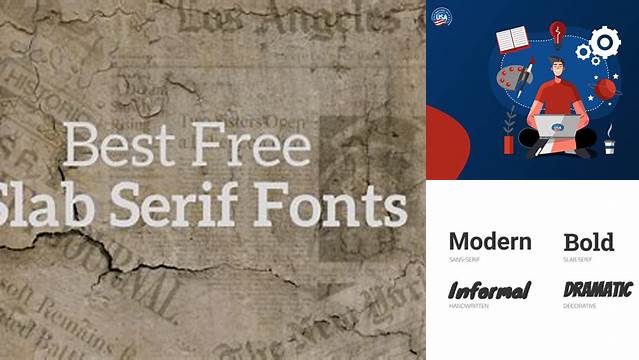
Best Fonts For Editorials: A Designer's Guide
Introduction: The Power of Typography in Editorial Design
Hey guys! Ever flipped through a magazine or a well-designed website and felt instantly drawn in? Chances are, the typography played a huge role in that. Typography, the art and technique of arranging type, is absolutely crucial in editorial design. It's not just about making words visible; it's about creating a visual hierarchy, setting the tone, and enhancing the overall reading experience. Choosing the right fonts for editorials is like picking the perfect outfit for an occasion—it can make or break the entire look and feel. This guide dives deep into the world of editorial fonts, helping you make informed choices that will elevate your designs. So, let's get started on unraveling the secrets of selecting the best fonts to captivate your audience and give your editorials that professional, polished edge!
When you think about editorial design, you're essentially crafting a visual narrative. The fonts you select are the voice of that narrative. A strong font choice can instantly communicate the publication's personality, whether it’s sophisticated, playful, serious, or avant-garde. Consider the message you want to convey: Is it a high-end fashion magazine that needs elegance and class? Or a tech journal that requires a modern and clean aesthetic? The typeface will need to align with the content and target audience. For instance, a serif font, with its classic and traditional feel, might be perfect for a literary journal or a historical publication. On the other hand, a sans-serif font, known for its clean lines and modern appeal, might be better suited for a contemporary magazine or a digital platform. Think of fonts as the visual equivalent of your tone of voice in writing; they have the power to subtly influence the reader’s perception and engagement. Choosing the correct font is therefore a critical skill in the editorial world. Beyond aesthetics, readability is paramount. After all, the primary goal of editorial design is to communicate information effectively. If the font is too decorative or difficult to read, readers will likely lose interest. This is where understanding the nuances of font pairing, kerning, and leading comes into play. You need fonts that work well together, both in headlines and body text, ensuring a seamless and enjoyable reading experience. The goal is to create a visual flow that guides the reader through the content, highlighting key points and maintaining interest throughout. This involves careful consideration of font size, line height, and letter spacing, ensuring that the text is easy on the eyes and invites readers to delve deeper into the story. Remember, the right font doesn't just look good; it works for the reader, making the content accessible and engaging.
Understanding Font Categories: Serif, Sans-Serif, and More
Okay, let's break down the font families! When we talk about fonts for editorials, it’s essential to understand the main categories: serif, sans-serif, script, and display fonts. Each category has its own personality and best-use cases. Serif fonts, with their little “feet” or strokes at the ends of letters, are often seen as classic, elegant, and traditional. Think Times New Roman or Garamond. These fonts are super readable in long blocks of text, making them ideal for the body text of magazines and books. The serifs help guide the reader's eye along the line, enhancing readability and creating a sense of formality. In the editorial world, serif fonts lend an air of sophistication and authority, making them a go-to choice for publications that value tradition and timeless design. Consider how a well-chosen serif font can elevate the look of a historical journal, a literary magazine, or even a high-end fashion spread. The subtle details in the serifs add a touch of refinement, making the text feel more polished and professional.
On the flip side, sans-serif fonts, which lack these strokes, are considered modern, clean, and minimalist. Arial and Helvetica are prime examples. They work wonderfully for headlines and subheadings, especially in contemporary magazines and websites. The clean lines of sans-serif fonts give a fresh, uncluttered look, making them perfect for conveying a sense of modernity and innovation. In editorial design, sans-serif fonts are often used to create visual contrast with serif body text, adding a dynamic element to the page layout. They are particularly effective in tech publications, lifestyle magazines, and online platforms where a sleek, contemporary aesthetic is desired. Sans-serif fonts are also highly versatile and can be used in a variety of contexts, from headlines and captions to infographics and callouts. Their simplicity and clarity make them an excellent choice for communicating information quickly and efficiently. Then, we have script fonts, which mimic handwriting. These are beautiful but should be used sparingly, mainly for logos or decorative headings, as they can be difficult to read in large blocks of text. Script fonts bring a touch of personality and flair to designs, making them ideal for invitations, greeting cards, and branding materials. In editorial design, script fonts can be used to add a touch of elegance and artistry, but it’s essential to use them judiciously. Overusing script fonts can clutter the design and make the text hard to read. Instead, focus on using them strategically to highlight key elements or create a specific mood. For instance, a script font might be perfect for the masthead of a lifestyle magazine or a quote in a feature article, adding a touch of individuality and charm. Finally, display fonts are the wildcards—bold, unique, and designed to grab attention. These are great for headlines and titles but not so much for body text. Display fonts are all about making a statement. They come in a wide range of styles, from vintage and retro to futuristic and abstract, allowing designers to create a distinct visual identity. In editorial design, display fonts are crucial for setting the tone and attracting readers’ attention. They are often used in magazine covers, feature headlines, and promotional materials to create a memorable impression. However, it’s important to use display fonts sparingly and thoughtfully. Too many display fonts can overwhelm the design and make it feel cluttered. Instead, choose one or two striking display fonts and pair them with more neutral body text fonts to create a balanced and cohesive look. Understanding these categories is the first step in choosing the right fonts for your editorial projects. Each type brings its own flavor to the table, and knowing how to mix and match them is key to creating visually appealing and highly readable designs.
Top Serif Fonts for Editorial Design
Let’s dive into some specific serif fonts that work wonders in editorial design. First up is Garamond, a timeless classic known for its elegance and readability. It’s perfect for book layouts and sophisticated magazines. Garamond’s graceful letterforms and subtle variations in stroke weight give it a refined, literary feel. Its long ascenders and descenders contribute to its readability, making it an excellent choice for body text in publications that value a traditional aesthetic. In editorial design, Garamond can bring a sense of history and sophistication, making it a go-to font for literary journals, historical magazines, and high-end publications. Its timeless appeal ensures that it remains a relevant and stylish choice for decades to come. The versatility of Garamond extends to both print and digital media, making it a reliable option for a wide range of editorial projects.
Then there's Times New Roman, the old reliable. While it might seem basic, it’s incredibly readable and versatile, making it a solid choice for newspapers and journals. Times New Roman’s familiarity and clarity make it a workhorse font in the publishing industry. Its high legibility in small sizes makes it ideal for dense text blocks, ensuring that readers can easily navigate through long articles and reports. While it may not have the same level of visual flair as some other serif fonts, Times New Roman’s practicality and reliability cannot be overstated. Its widespread use also means that it’s universally recognized and accessible, making it a safe choice for publications that prioritize readability and clarity. In editorial design, Times New Roman is often used in newspapers, academic journals, and other publications where information needs to be conveyed efficiently and effectively. Another fantastic option is Baskerville, a font that strikes a balance between classic and modern. It’s elegant and readable, making it suitable for a variety of editorial projects. Baskerville’s refined serifs and balanced proportions give it a timeless appeal, while its slightly wider letterforms enhance readability. It’s a font that commands attention without being overly assertive, making it an excellent choice for publications that want to convey both sophistication and approachability. In editorial design, Baskerville is often used in magazines, books, and websites that aim for a polished and professional look. Its versatility allows it to work well in both headlines and body text, making it a reliable choice for a wide range of design applications. Caslon is another standout serif font. With its classic yet slightly quirky design, it adds character to any editorial piece. Caslon’s distinctive serifs and subtle irregularities give it a warm and inviting feel, making it a favorite among designers who want to add personality to their work. Its readability and versatility make it suitable for a wide range of editorial projects, from book design to magazine layouts. In editorial design, Caslon is often used in publications that value both tradition and individuality. Its timeless appeal ensures that it remains a stylish choice, while its unique character adds a touch of flair. These serif fonts are the backbone of many stunning editorial designs, offering a blend of readability, elegance, and versatility. Choosing the right serif font can set the tone for your entire publication, so it's worth exploring these options and seeing what resonates with your vision.
Sleek Sans-Serif Fonts for Modern Editorials
Now, let's switch gears and explore some sleek sans-serif fonts perfect for modern editorials. First up, we have Helvetica, the king of sans-serif. It’s clean, neutral, and incredibly versatile, making it a go-to for many designers. Helvetica’s simplicity and clarity make it a timeless choice for a wide range of applications. Its neutrality allows it to blend seamlessly into any design, while its excellent readability ensures that it can be used effectively in both headlines and body text. In editorial design, Helvetica is often used in publications that aim for a clean, modern aesthetic. Its versatility makes it a reliable choice for everything from magazines and websites to corporate reports and brochures. Helvetica’s enduring popularity is a testament to its effectiveness and timeless appeal. Next, there’s Arial, a font that’s often compared to Helvetica. It’s also clean and readable, making it a great alternative for those looking for a similar vibe. Arial’s clean lines and clear letterforms make it a highly legible font, suitable for a wide range of applications. While it may lack some of the subtle nuances of Helvetica, Arial is still a solid choice for editorial design, particularly in situations where readability is paramount. Its widespread availability and familiarity make it a practical option for publications that want to ensure their content is accessible to the broadest possible audience. In editorial design, Arial is often used in newspapers, online articles, and other publications that prioritize clarity and efficiency.
Futura is another standout sans-serif font, known for its geometric shapes and modern feel. It’s perfect for headlines and titles that need a bold, contemporary look. Futura’s geometric letterforms and sharp angles give it a distinctive, futuristic look. Its clean lines and strong visual presence make it an excellent choice for headlines, titles, and other display text. In editorial design, Futura is often used in magazines, websites, and branding materials that aim for a modern, sophisticated aesthetic. Its versatility allows it to work well in a variety of contexts, from fashion and design publications to corporate communications and technology websites. Then we have Open Sans, a highly readable sans-serif font that works well both in print and on screen. It’s a great choice for body text in digital publications. Open Sans’s open letterforms and generous spacing contribute to its excellent readability, making it an ideal choice for body text in both print and digital publications. Its neutral design ensures that it doesn’t distract from the content, while its clarity and legibility make it a pleasure to read. In editorial design, Open Sans is often used in websites, e-books, and other digital publications that prioritize readability and user experience. These sans-serif fonts bring a contemporary edge to editorial design, offering clean lines and excellent readability for a variety of projects. The key is to choose a font that aligns with your publication's style and target audience, ensuring a cohesive and visually appealing final product.
Mixing and Matching Fonts: Creating Visual Harmony
Okay, guys, now for the fun part: mixing and matching fonts! This is where you can really flex your creative muscles and create a unique visual identity for your editorial design. The key to successful font pairing is to create contrast while maintaining harmony. Think of it like music—different instruments playing together to create a beautiful melody. A classic approach is to pair a serif font for body text with a sans-serif font for headlines. This creates a clear visual hierarchy, making it easy for readers to navigate the page. For example, you might pair Garamond (serif) with Helvetica (sans-serif) or Baskerville (serif) with Futura (sans-serif). The serif font provides a sense of tradition and readability for the body text, while the sans-serif font adds a modern touch to the headlines. This combination is both visually appealing and highly functional, making it a popular choice in editorial design.
Another strategy is to use different weights and styles within the same font family. For instance, you could use a bold weight for headlines and a regular weight for body text. This creates subtle contrast while maintaining a cohesive look. Font families like Roboto and Open Sans offer a wide range of weights and styles, making them excellent choices for this approach. Using different weights within the same family ensures that the fonts complement each other seamlessly, creating a unified and professional design. This technique is particularly effective in minimalist designs where simplicity and clarity are paramount. You can also experiment with different sizes and spacing to create further visual interest. When mixing fonts, pay attention to the x-height, which is the height of the lowercase letters. Fonts with similar x-heights tend to pair well together. A consistent x-height creates a visual alignment across different fonts, making the design feel more cohesive and balanced. For example, pairing fonts with significantly different x-heights can create a jarring effect, making the design feel disjointed. Stick to fonts that have a similar visual proportion to maintain harmony and readability. Also, consider the personality of the fonts you're pairing. Do they complement each other in terms of tone and style? A sophisticated serif font might not pair well with a playful script font, for example. It’s essential to choose fonts that share a similar aesthetic or create a deliberate contrast that enhances the overall design. The goal is to create a visual experience that is both engaging and easy on the eyes. Remember, the best font pairings enhance the content and guide the reader through the page. Avoid using too many fonts—stick to two or three at most—to prevent visual clutter and maintain a professional look. Overusing fonts can make the design feel chaotic and overwhelming, distracting the reader from the content. Instead, focus on creating a clear visual hierarchy by using font pairings strategically. A well-executed font pairing can elevate your editorial design, making it more visually appealing and engaging. Don't be afraid to experiment and trust your instincts, but always prioritize readability and visual harmony.
Tools and Resources for Font Selection
So, where can you find these amazing fonts and resources to help you choose the best fonts for your editorial projects? There are tons of great websites and tools out there! Google Fonts is a fantastic place to start. It offers a huge library of free, high-quality fonts that you can use in your designs. Google Fonts is a treasure trove for designers, offering a wide range of typefaces in various styles and weights. The fonts are open-source, making them freely available for both personal and commercial use. The website also provides helpful information about font pairings and usage, making it a valuable resource for designers of all levels. With its extensive collection and user-friendly interface, Google Fonts is an excellent starting point for any editorial project.
Adobe Fonts (part of Adobe Creative Cloud) is another excellent resource, offering a vast collection of fonts that you can use in your projects. Adobe Fonts integrates seamlessly with Adobe Creative Suite, making it easy to access and use a wide variety of typefaces. The service offers a subscription-based model, providing access to thousands of fonts from leading foundries. Adobe Fonts also includes powerful search and filtering tools, making it easy to find the perfect font for your project. Its integration with Adobe Creative Cloud ensures that fonts are always available and up-to-date, streamlining the design process. For those willing to invest in a subscription, Adobe Fonts is a premium resource that offers both quality and convenience. Websites like MyFonts and FontShop are great marketplaces for purchasing premium fonts. These platforms offer a wide selection of fonts from independent foundries and type designers, providing access to unique and high-quality typefaces. MyFonts and FontShop are known for their extensive collections and user-friendly interfaces, making it easy to browse and purchase fonts. They also offer a variety of licensing options, allowing designers to choose the best fit for their projects. While premium fonts often come with a higher price tag, they can add a level of sophistication and originality to editorial designs. For help with font pairing, websites like FontPair and Canva’s Font Combinations tool offer suggestions and examples of fonts that work well together. These tools simplify the process of font selection by providing curated pairings that are visually appealing and highly readable. FontPair, for example, focuses specifically on Google Fonts, offering a range of combinations that can be easily implemented in web projects. Canva’s Font Combinations tool, on the other hand, is integrated within the Canva design platform, allowing users to experiment with different pairings directly within their designs. These resources are invaluable for designers who want to create harmonious and visually striking editorial layouts. And don't forget to check out design blogs and articles for inspiration and tips on typography! Many design blogs and online publications regularly feature articles on typography, providing insights into current trends and best practices. These resources can help designers stay up-to-date with the latest developments in the field and discover new and exciting fonts. Reading about typography can also enhance a designer's understanding of the principles of font selection and pairing, leading to more effective and visually appealing designs. Whether it's exploring case studies, reading interviews with type designers, or browsing font reviews, these resources can significantly enrich a designer's typographic knowledge. With these tools and resources at your fingertips, you'll be well-equipped to choose the perfect fonts for your next editorial masterpiece.
Conclusion: Crafting the Perfect Editorial with the Right Fonts
Choosing the best fonts for editorials is a crucial part of the design process. The right fonts can elevate your content, enhance readability, and create a visual experience that captivates your audience. By understanding font categories, exploring specific font options, and mastering the art of font pairing, you can create stunning editorial designs that leave a lasting impression. Remember, typography is more than just making words visible; it's about communication, emotion, and visual storytelling. The fonts you choose play a significant role in shaping the reader's perception of your publication, so it's essential to select typefaces that align with your brand's identity and message. Whether you're designing a magazine, a website, or a book, the principles of effective typography remain the same: prioritize readability, create visual harmony, and choose fonts that enhance the content. By mastering these principles, you can create editorial designs that are both beautiful and functional, engaging readers and conveying your message with clarity and style. So go forth and experiment, explore new fonts, and let your creativity shine through your typographic choices!
From classic serif fonts like Garamond and Baskerville to modern sans-serif options like Helvetica and Futura, there's a vast world of typefaces to discover. Each font has its own unique personality and characteristics, making it suitable for different editorial contexts. The key is to understand the nuances of each font and how it interacts with other design elements. Consider the overall tone and style of your publication, the target audience, and the content itself when making your font selections. A well-chosen typeface can not only enhance readability but also add a layer of visual interest and sophistication to your design. Furthermore, don't underestimate the power of font pairing. Combining different typefaces strategically can create visual contrast and hierarchy, guiding the reader's eye and making the content more engaging. Experiment with different pairings, such as serif and sans-serif combinations or varying weights and styles within the same font family, to find what works best for your design. Remember to maintain a balance and avoid using too many fonts, as this can lead to visual clutter and detract from the overall aesthetic. Ultimately, the goal is to create a cohesive and harmonious design that enhances the reading experience and effectively communicates your message. With careful planning and attention to detail, you can craft editorial layouts that are both visually stunning and highly functional. So, embrace the art of typography and let your fonts speak volumes.